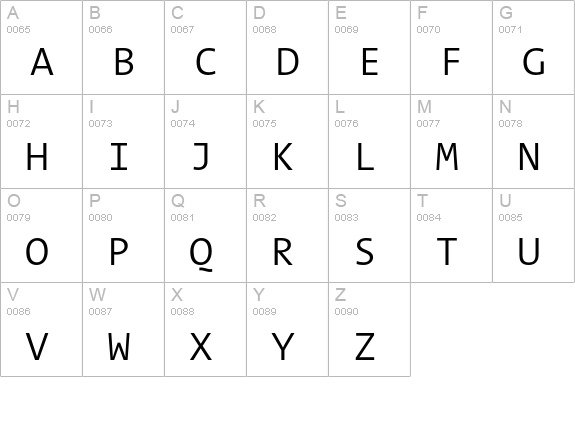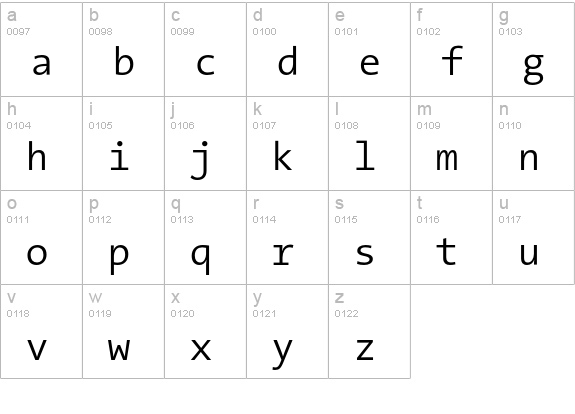
TheSansMono Semi Light is a refined, elegant variant in the TheSansMono typeface family \xE2\x80\x94 well suited to elegant body text, refined sub-headings, and luxury branding.
TheSansMono Semi Light font is a visually pleasing and highly legible typeface that is perfect for a wide range of design projects. Its semi-light weight adds a touch of elegance and sophistication to any text, making it suitable for both professional and personal use. This font offers a clean and modern aesthetic with its sleek lines and balanced proportions. The characters are well-spaced, ensuring optimal readability even at smaller sizes. Its simple yet refined design makes it an excellent choice for applications such as coding, programming, and technical documentation. One of the best features of TheSansMono Semi Light font is that it is freely available to download at FontsMarket.com. This means that you can enjoy the benefits of this beautiful typeface without having to spend a dime. It is a great option for designers and typographers who are looking for a high-quality font that doesn't break the bank. Whether you are working on a website, a mobile app, or a print design project, TheSansMono Semi Light font will effortlessly elevate your work to a new level of sophistication. Its versatility and timeless appeal make it suitable for a wide range of design styles, from minimalistic to more elaborate compositions. So why wait? Head over to FontsMarket.com and download TheSansMono Semi Light font today. Experience the freedom of accessing a top-quality font that will enhance your designs and captivate your audience.